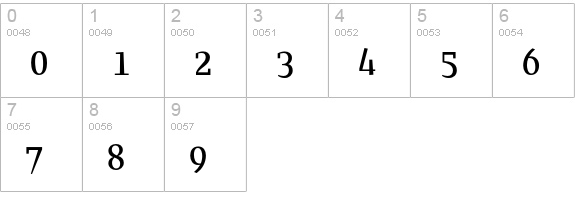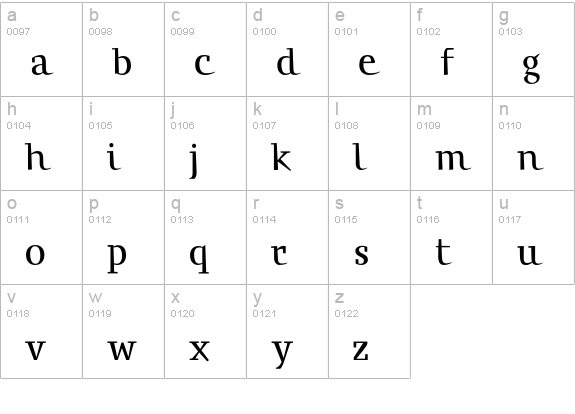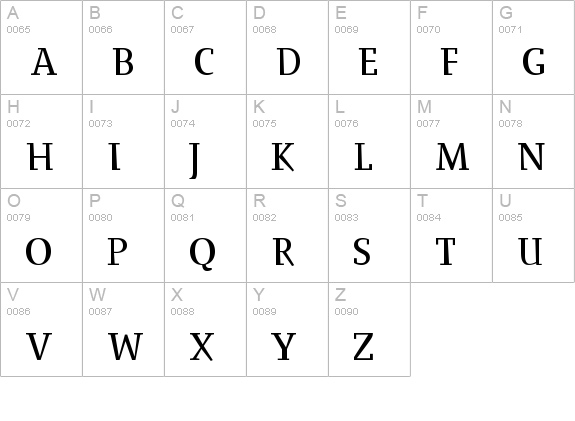
KeuleOldStyleEF-Regular Font Details
KeuleOldStyleEF-Regular is the standard, neutral variant in the KeuleOldStyleEF typeface family \xE2\x80\x94 well suited to general body text, paragraphs, and standard typographic work.
KeuleOldStyleEF-Regular is a timeless and versatile font that combines the elegance of traditional serif typefaces with a modern twist. With its classic and refined appearance, this font is perfect for adding a touch of sophistication to any design project. The clean and crisp lines of KeuleOldStyleEF-Regular create a harmonious balance between tradition and innovation, making it suitable for a wide range of applications. From elegant branding and logo designs to eye-catching headlines and body text, this font effortlessly captures attention and conveys a sense of professionalism. One of the standout features of KeuleOldStyleEF-Regular is its versatility. Whether you're designing for print or web, this font adapts beautifully to any medium. Its excellent legibility ensures that your message is easily readable, while its subtle details and unique character shapes add a touch of personality to your designs. But what makes KeuleOldStyleEF-Regular even more appealing is that it is available for free. That's right, you can freely download this font at FontsMarket.com. This means that you can access this exceptional typeface without any cost, making it an ideal choice for designers on a budget or those who simply appreciate high-quality fonts without breaking the bank. So, whether you're working on a professional project or simply looking to elevate your personal designs, KeuleOldStyleEF-Regular is the perfect font to add a touch of elegance and style. Download it for free at FontsMarket.com and start creating stunning designs that leave a lasting impression.